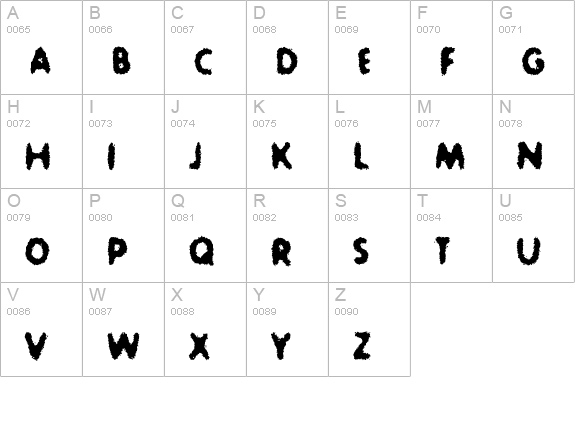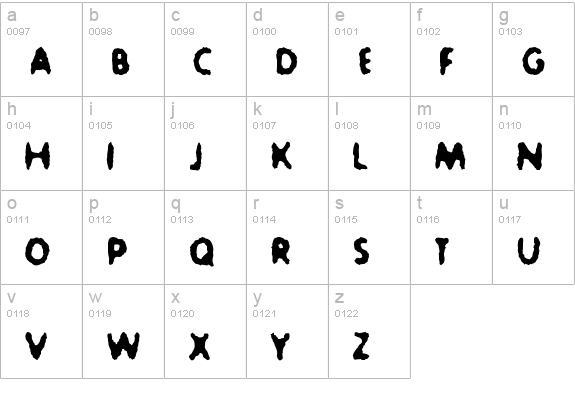
Sludge Bucket Font Details
Sludge Bucket font is a unique and edgy typeface that exudes a gritty and grungy vibe. With its bold and irregular letterforms, this font is perfect for making a statement and adding a touch of rebelliousness to your designs. Designed with a sludgy and messy aesthetic in mind, Sludge Bucket font captures the essence of urban decay and industrial grit. Its distorted and uneven strokes give it a distinctive and unconventional character that sets it apart from other fonts. This font is not only visually striking but also versatile and adaptable. Whether you're designing a poster, album cover, logo, or any other creative project, Sludge Bucket font will add a touch of rawness and raw energy to your design. The best part is that Sludge Bucket font is available for free download at FontsMarket.com. This means that you can easily get your hands on this one-of-a-kind font without having to spend a dime. FontsMarket.com offers a wide range of high-quality fonts, and Sludge Bucket font is just one of the many options available. So why wait? Download Sludge Bucket font today and unleash your creativity with this captivating and free font. Let your designs stand out from the crowd and make a bold statement with this rebellious and grungy typeface.